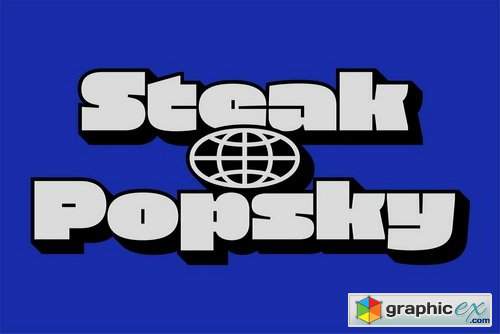
Gimbo Font Family
Gimbo is a display & Playful font that has strong and powerful, Designed to be bold and large, Gimbo Typeface Perfect for Video Game, Cartoon, Caption,
Headline, and Poster.